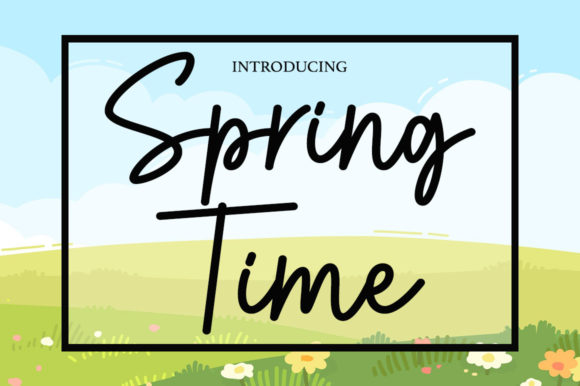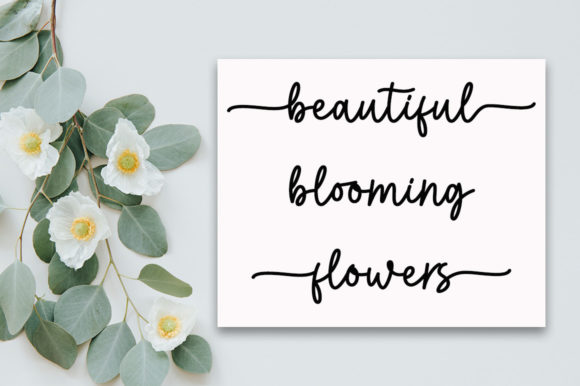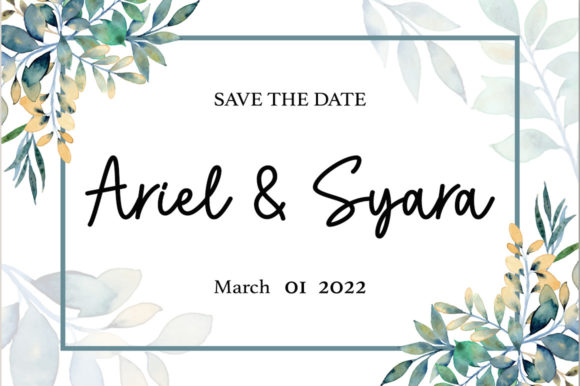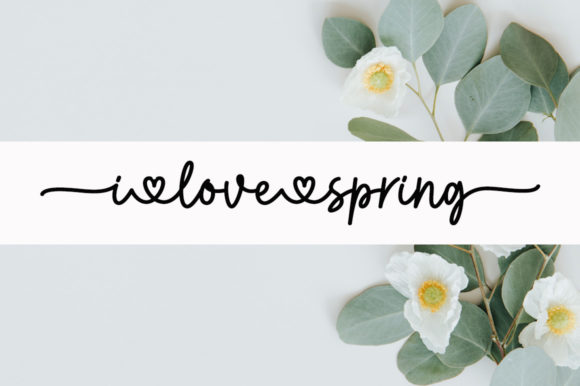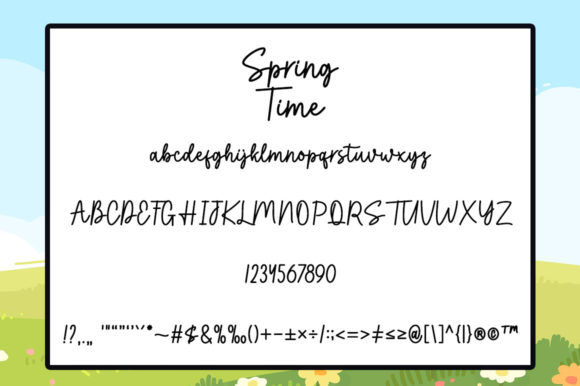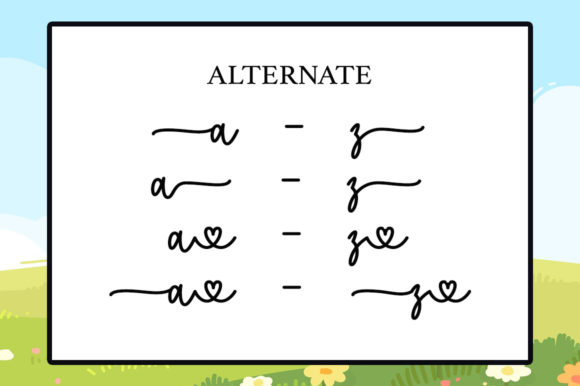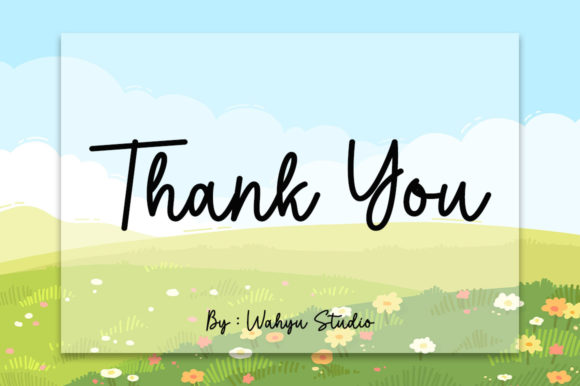
Spring Time Font
About Spring Time Font
Spring Time is a font that exudes an air of elegance and refinement through its carefully crafted script style. With its balanced and versatile strokes, Spring Time strikes the perfect harmony between thickness and thinness, making it an ideal choice to elevate the aesthetics of your design projects.
The font’s versatility shines through in its ability to enhance the beauty of a wide range of projects. From branding and logos to invitations and stationery, Spring Time adds a touch of sophistication that captures attention and leaves a lasting impression. Its varied and well-balanced characters give your designs a sense of harmony and visual appeal, making it suitable for both digital and print applications.
When it comes to branding and logo design, Spring Time offers a delightful option to create an elegant and memorable brand identity. Its distinctive letterforms convey a sense of professionalism and creativity, ensuring that your logo stands out in a competitive market. The font’s PUA encoding allows for easy access to a plethora of glyphs and swashes, giving you the creative freedom to customize and personalize your designs with ease.
Invitations and stationery are given a refined touch with Spring Time. Whether you’re designing wedding invitations, greeting cards, or event announcements, the font’s elegant script adds a sense of charm and sophistication. The carefully designed glyphs and swashes offer endless possibilities to create unique and eye-catching layouts that resonate with your target audience.
The versatility of Spring Time extends to various design contexts, such as social media posts, advertisements, and product packaging. Its timeless aesthetic adds a touch of class to your digital and print materials, making your content more visually appealing and engaging to your audience. The font’s ability to strike the right balance between elegance and readability ensures that your message is effectively communicated.
In summary, Spring Time is more than just a font – it’s a versatile design tool that enhances the visual impact of your projects with its elegant and well-balanced script style. Whether you’re looking to create a captivating logo, sophisticated branding materials, or exquisite invitations, Spring Time’s PUA encoding provides you with the creative freedom to explore a wide array of glyphs and swashes, resulting in designs that truly shine.